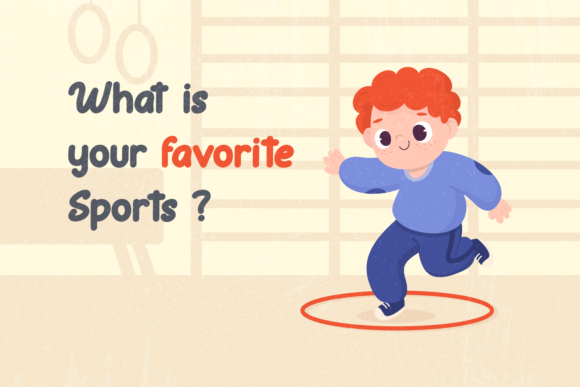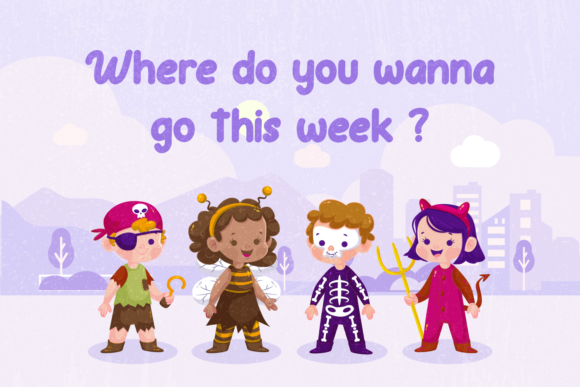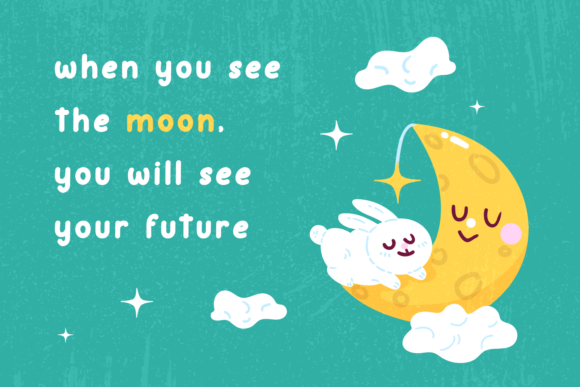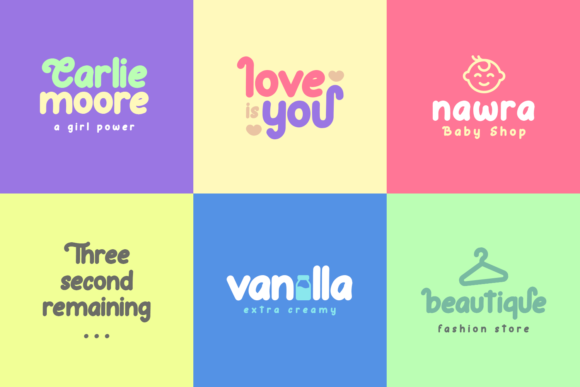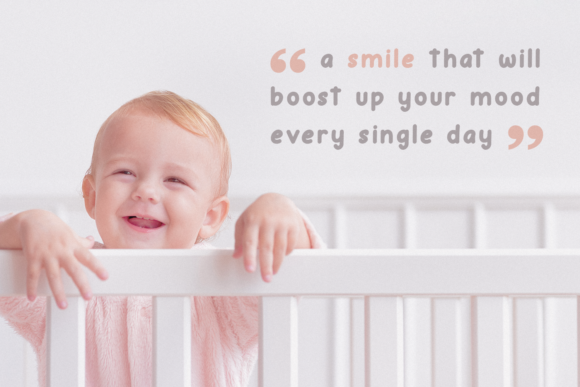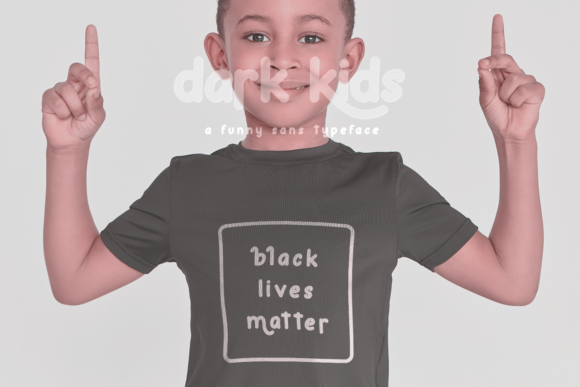
Introducing Dark Kids Font: The Ultimate Display Font for Friendly and Fun Designs
Are you tired of using the same old fonts for your designs, crafts, and digital projects? Look no further than Dark Kids Font, a childish and easy-to-read display font that’s perfect for conveying friendliness and approachability. In this article, we’ll dive into the world of Dark Kids Font and explore its features, benefits, and uses, so you can decide if it’s the perfect addition to your font collection.
What is Dark Kids Font?
Dark Kids Font is a unique and playful display font designed to bring a touch of childhood innocence and joy to your designs. Its bold and bubbly personality makes it an excellent choice for a wide range of projects, from crafts and digital design to presentations and greeting cards. With its clean and simple lines, Dark Kids Font is incredibly easy to read, making it perfect for headlines, titles, and short paragraphs of text.
The Features of Dark Kids Font
So, what makes Dark Kids Font so special? Here are just a few of its standout features:
- Childish and playful design: Dark Kids Font has a distinctly youthful feel that’s perfect for designs that need a friendly and approachable tone.
- Easy to read: The font’s clean lines and simple shapes make it incredibly easy to read, even at smaller sizes.
- Versatile: Dark Kids Font is suitable for a wide range of projects, from digital design to crafts and presentations.
- Impeccable friendliness: The font’s friendly and approachable tone makes it perfect for designs that need to convey warmth and personality.
Uses for Dark Kids Font
So, what can you use Dark Kids Font for? The possibilities are endless! Here are just a few ideas to get you started:
- Crafts: Dark Kids Font is perfect for handmade crafts, such as card making, scrapbooking, and DIY projects.
- Digital design: The font is great for digital designers who need a friendly and approachable font for their projects, such as social media graphics, blog posts, and email newsletters.
- Presentations: Dark Kids Font is a great choice for presentations that need to convey a friendly and approachable tone, such as educational presentations or sales pitches.
- Greeting cards: The font is perfect for creating friendly and personalized greeting cards for special occasions, such as birthdays, holidays, and weddings.
Why Choose Dark Kids Font?
With so many fonts to choose from, why should you choose Dark Kids Font? Here are just a few reasons:
- Unique and playful design: Dark Kids Font has a distinctive and playful design that’s sure to stand out from the crowd.
- Friendliness: The font’s friendly and approachable tone makes it perfect for designs that need to convey warmth and personality.
In conclusion, Dark Kids Font is a unique and playful display font that’s perfect for designers, crafters, and anyone looking for a friendly and approachable font. With its childish design, ease of use, and versatility, Dark Kids Font has the potential to become your go-to font for all your design needs. So why not give it a try and see how it can bring a touch of childhood innocence and joy to your designs?